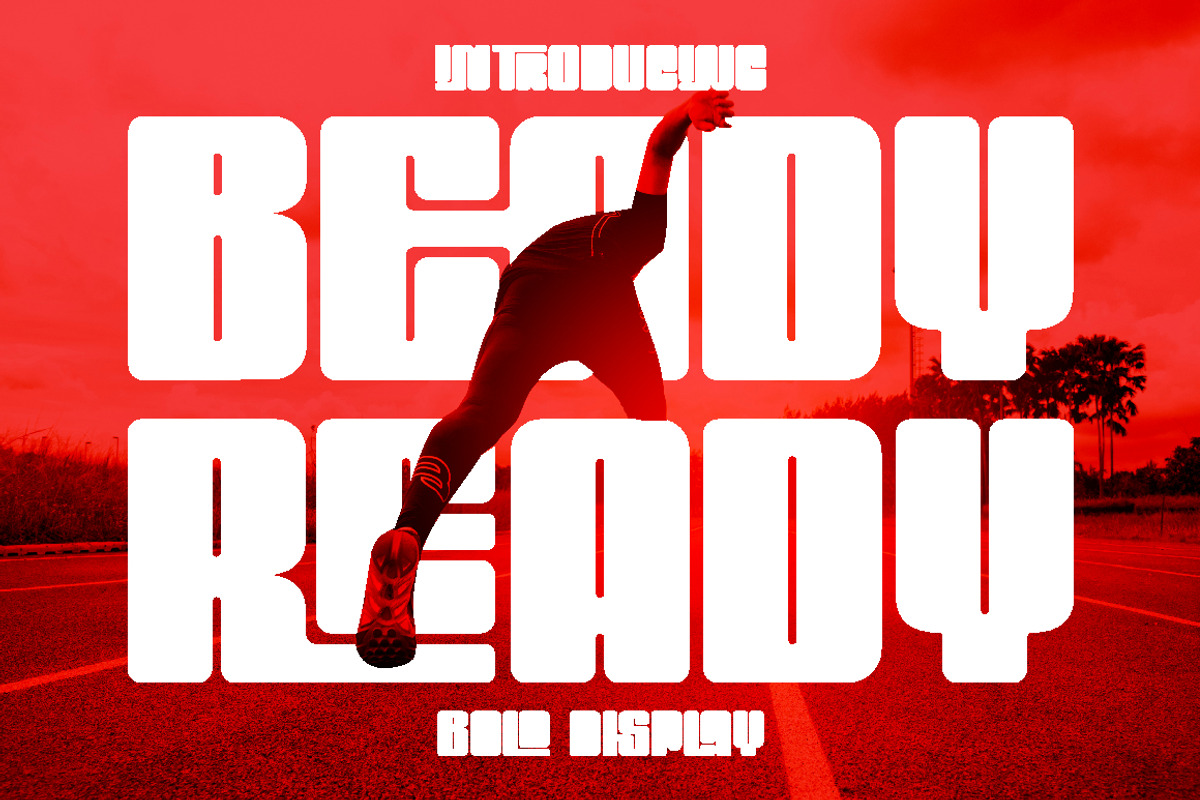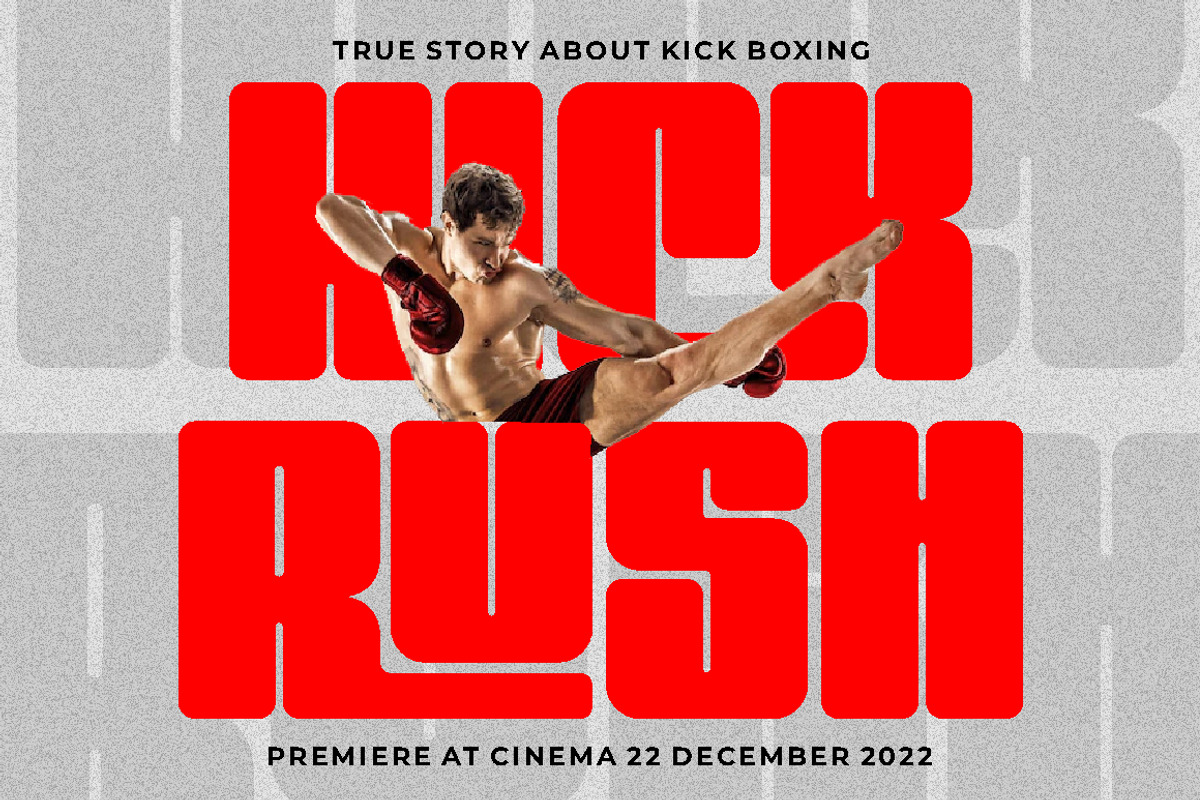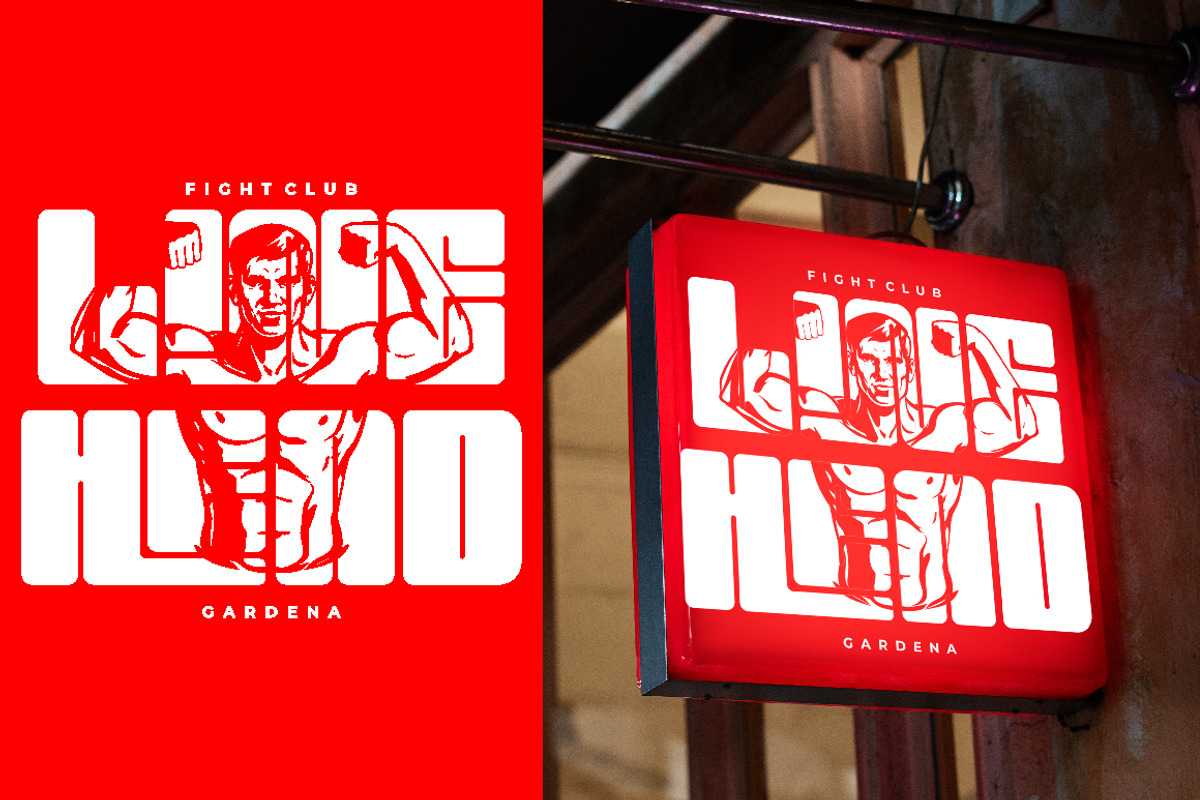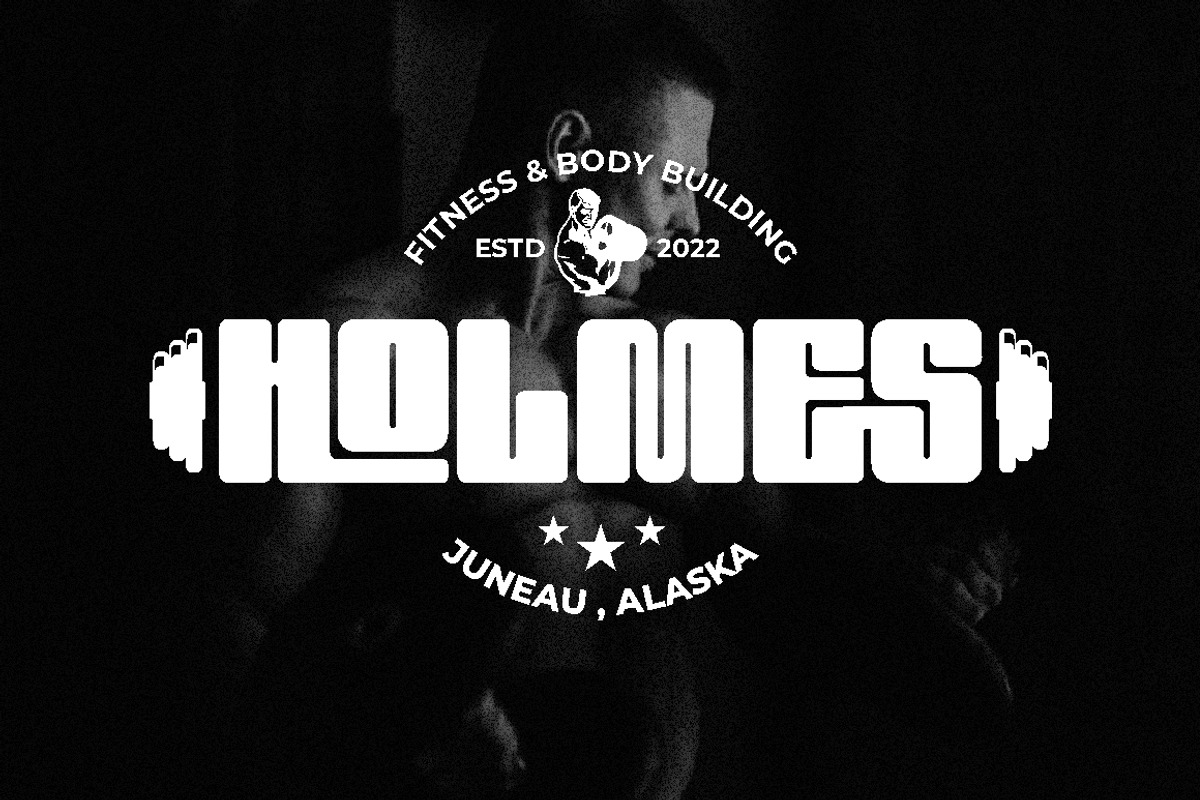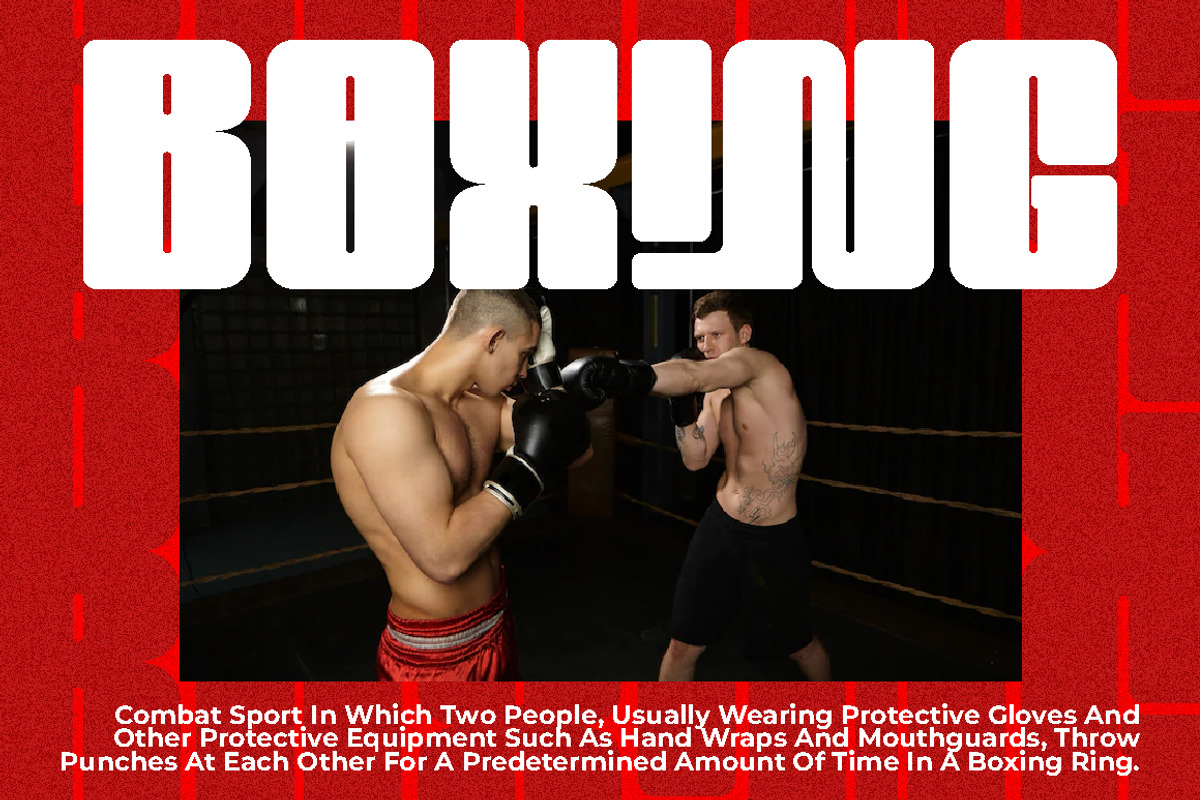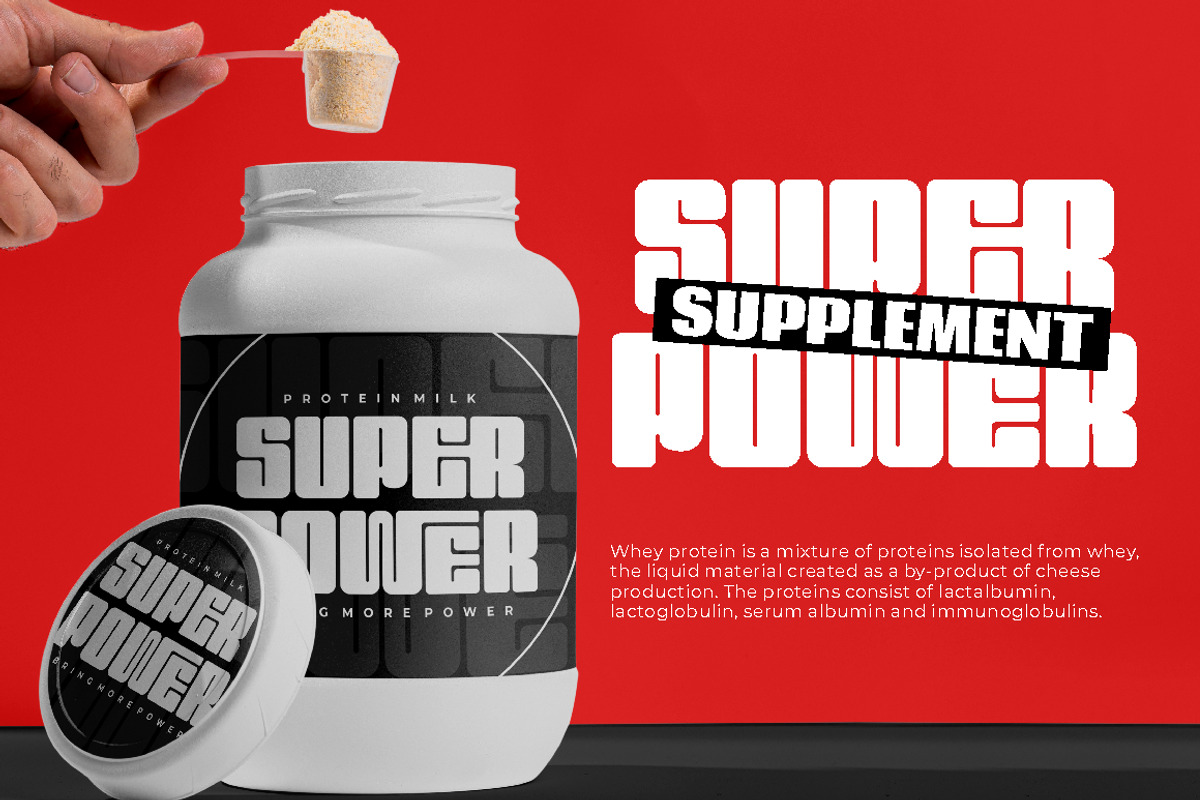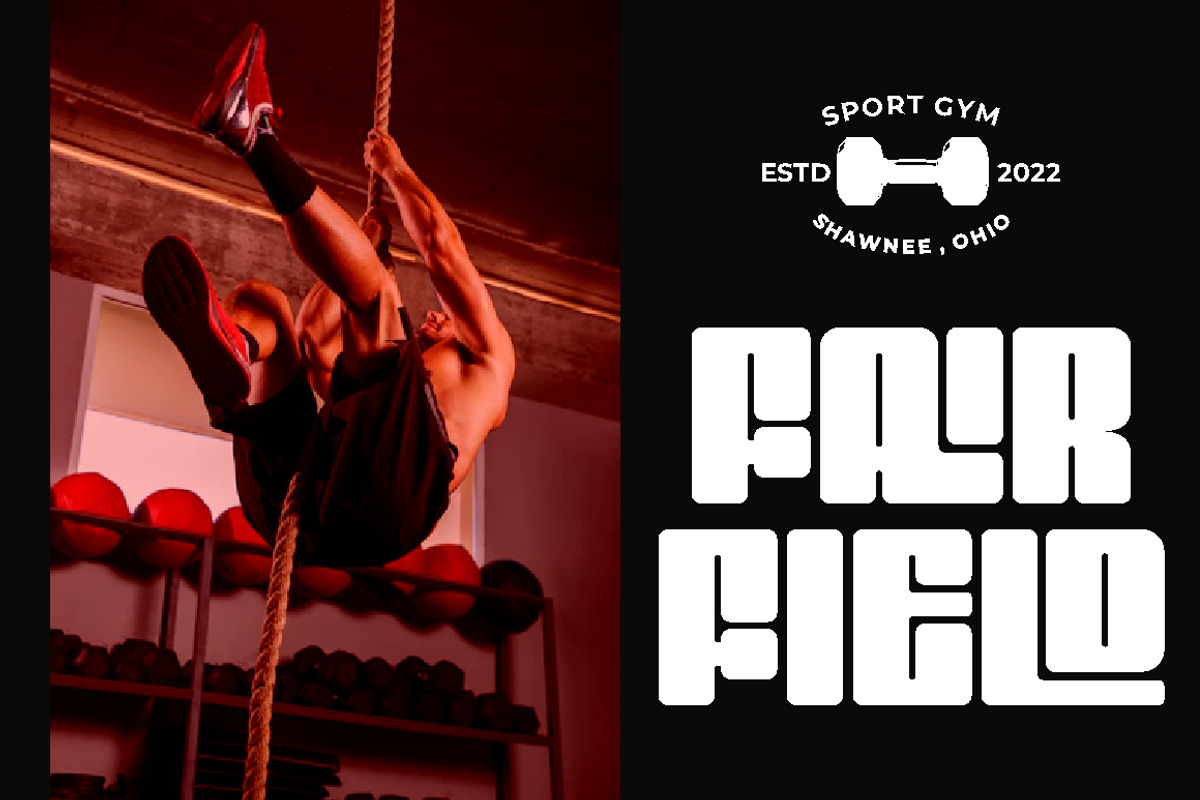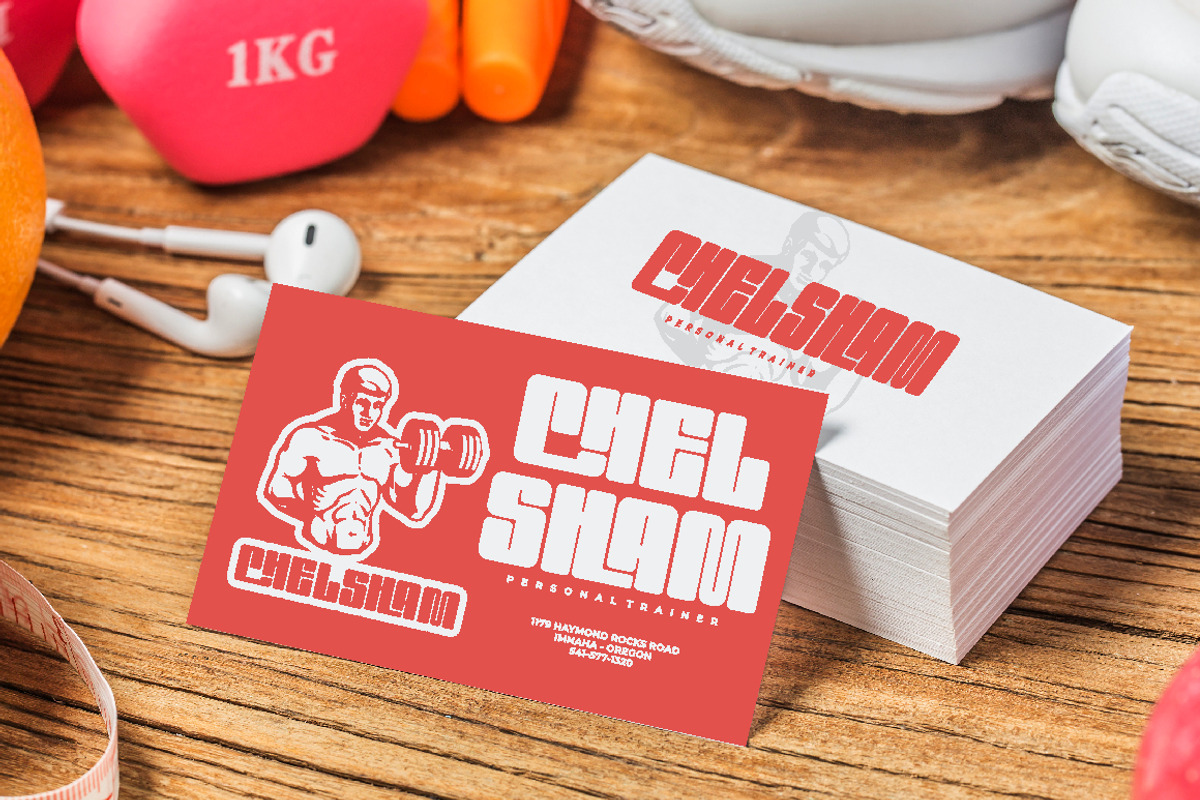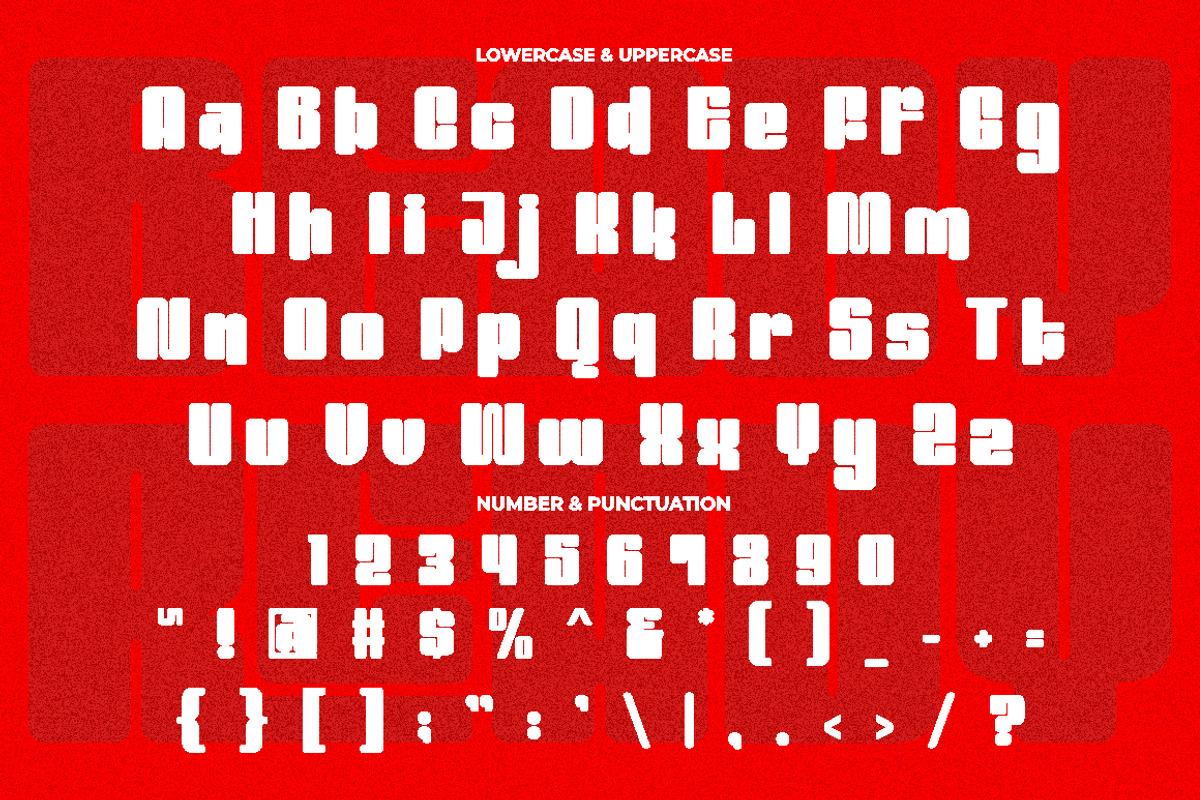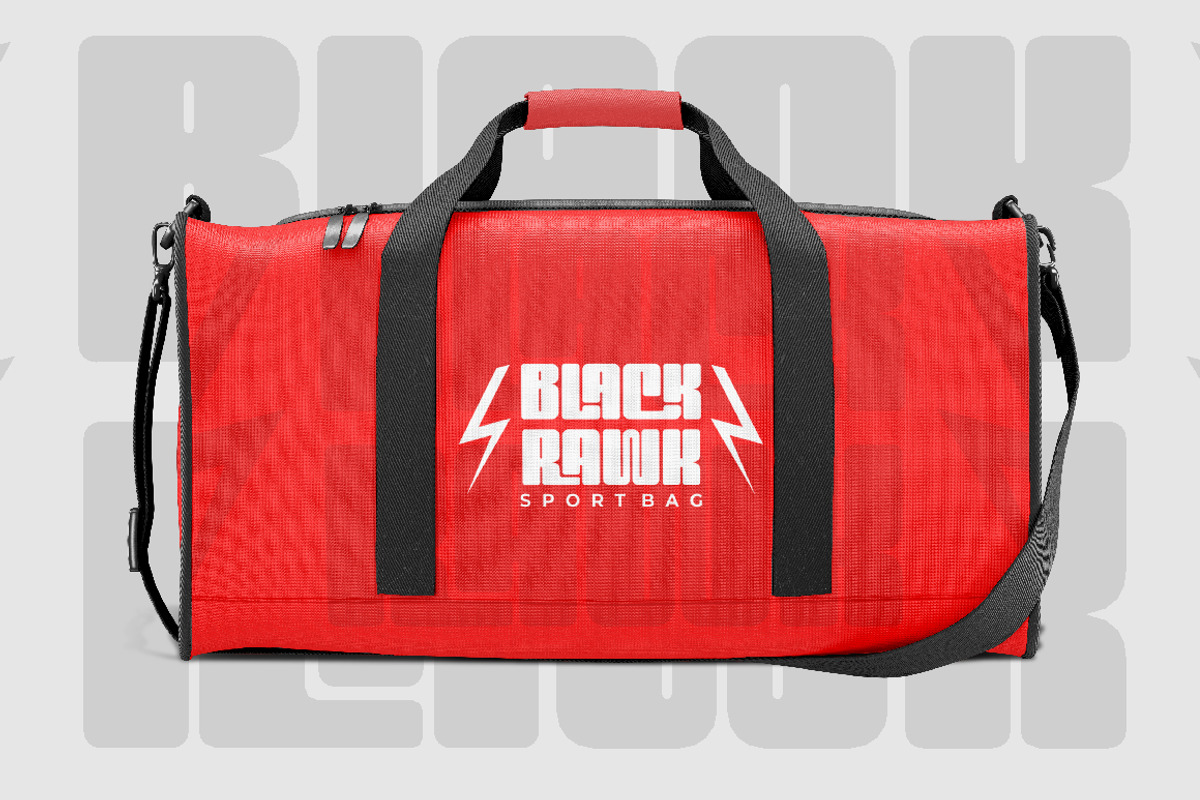
Beady Ready - Bold Display Font
Beady Ready is a bold display font featuring a modern style, perfect for creating sporty modern-inspired designs. This font is the perfect choice for designers looking to add a bold and unique touch to their projects. Created with attention to detail, Beady Ready is a versatile font that can be used for a variety of purposes, such as branding, packaging, advertising, and more.
When using Beady Ready, the possibilities are endless. This font works well for designs that need bold and eye-catching titles or headings. It can be used in posters, flyers, product packaging and other printed materials that require a strong visual impact. Additionally, Beady Ready can be used in digital designs such as social media graphics, web banners and more.
Beady Ready comes packed with features that make it an excellent choice for designers. This includes uppercase and lowercase letters, as well as alternatives and ligatures via the OpenType feature. This feature makes it easy to add a unique touch to your designs by swapping out the letters for different variations. Fonts also include numbers, punctuation, and symbols, making them easy to use in a variety of projects. Finally, Beady Ready has multilingual support, allowing you to use it for projects in multiple languages.
If you're looking for a font that is unique, bold, and full of character, Beady Ready is the right choice. This font is perfect for designers looking to add a touch of modern sport to their projects.
In short, Beady Ready is a bold display font with a modern style that's perfect for creating sporty-inspired designs. It comes with a variety of features, including alternatives and binders via the OpenType feature, making it easy to add a unique touch to your designs. This font also includes multilingual support, making it an excellent choice for projects in multiple languages. With the Beady Ready font, you can create eye-catching designs that stand out from the crowd.